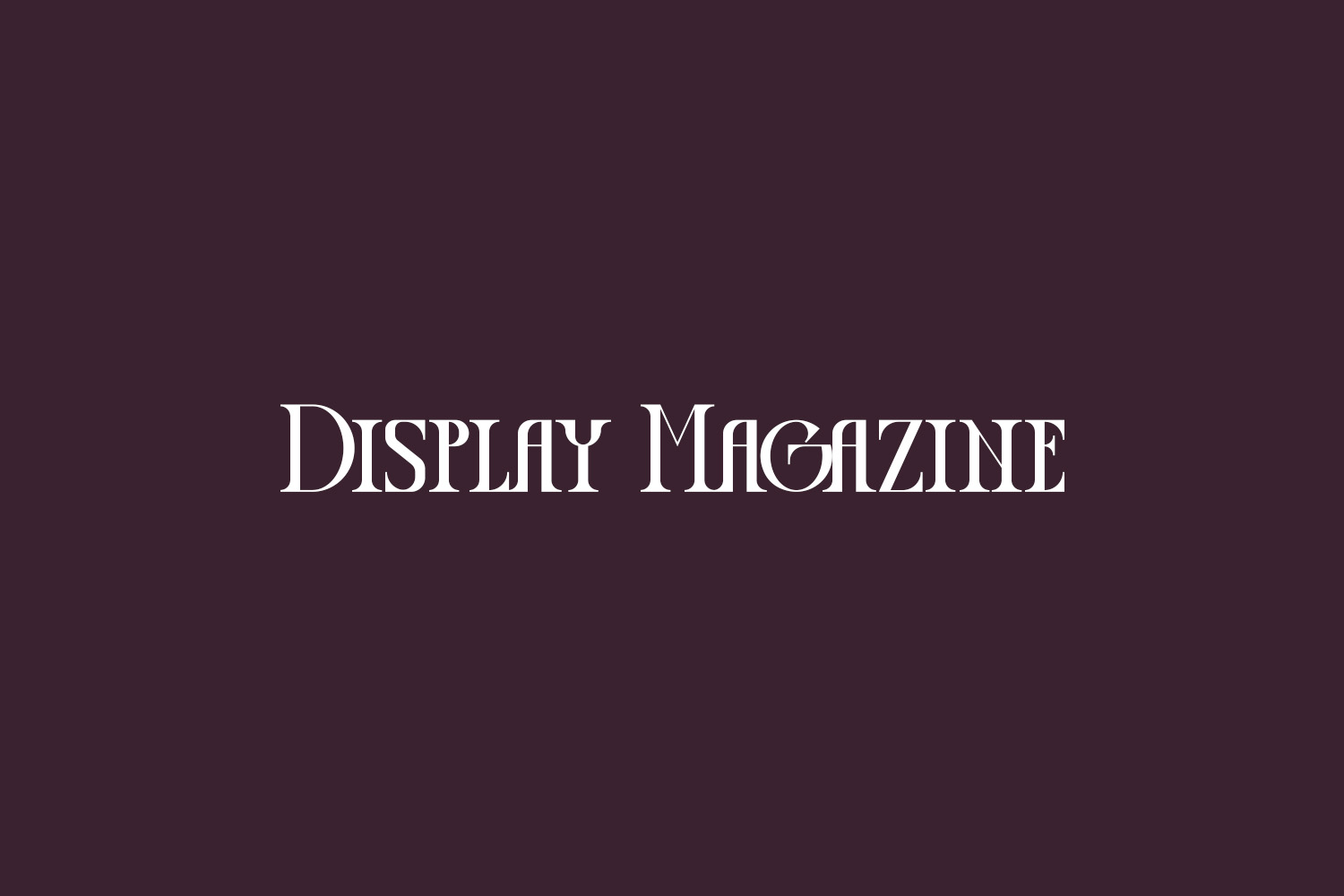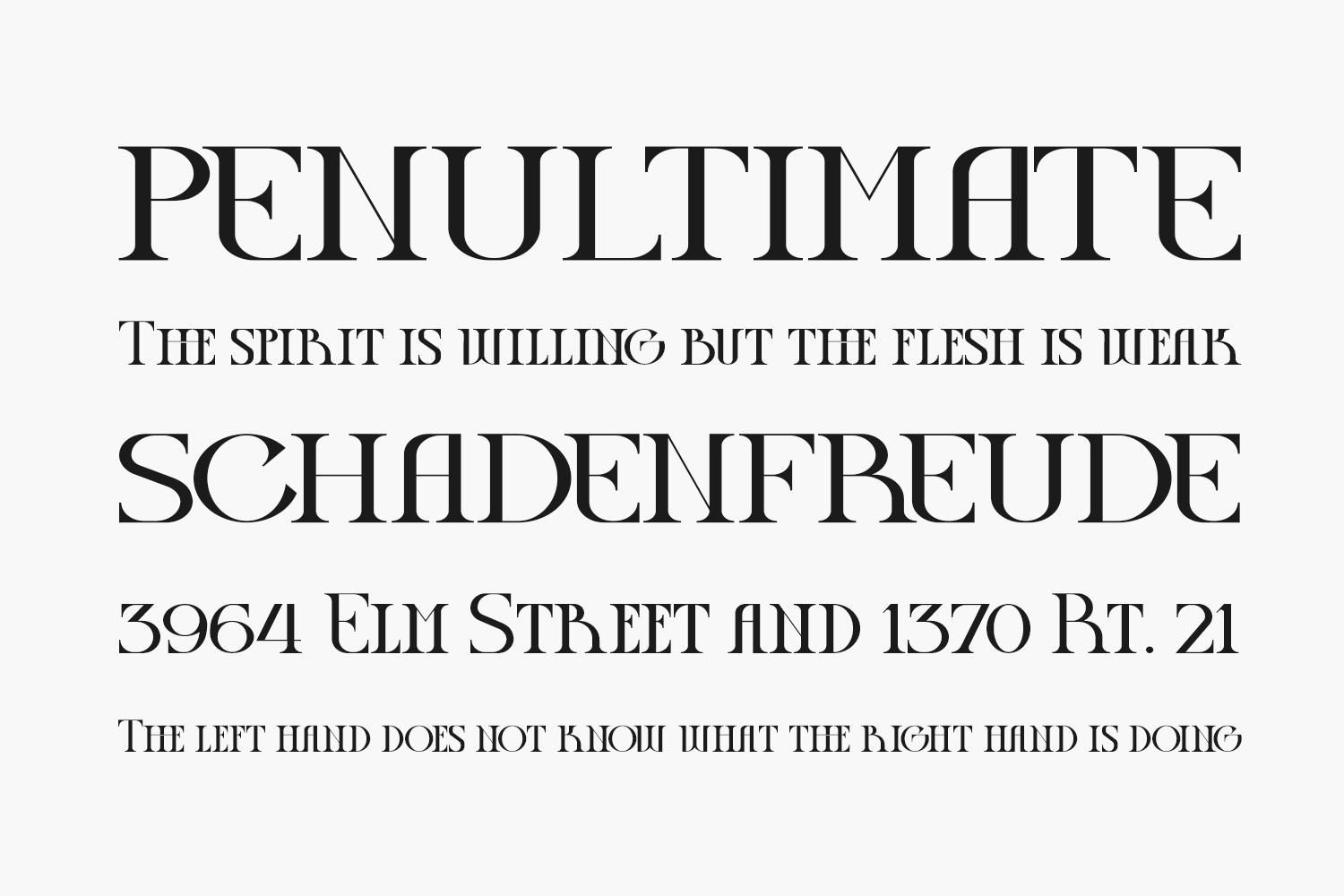
Display Magazine Free Font Family is an assertive and distinctive serif font that makes a bold statement. With its uniquely shaped letters, this font is sure to add a touch of personality to any project that requires a distinct and memorable look. Whether you’re designing a logo, a magazine layout, or any other creative project, Display Magazine Free Font will elevate your work with its powerful presence. Download Display Magazine Free Font today and see how it can enhance your designs.